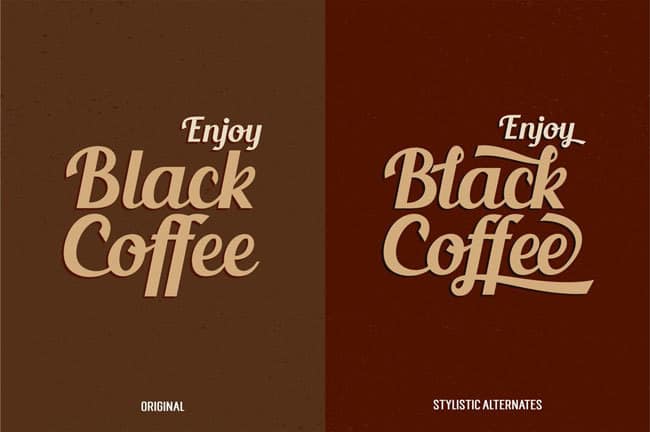
Today’s daily freebie is a free experimental font from Senior Studio. The font type has been inspired by 2013’s sleeper hit font -Lobster, a bold vintage script.